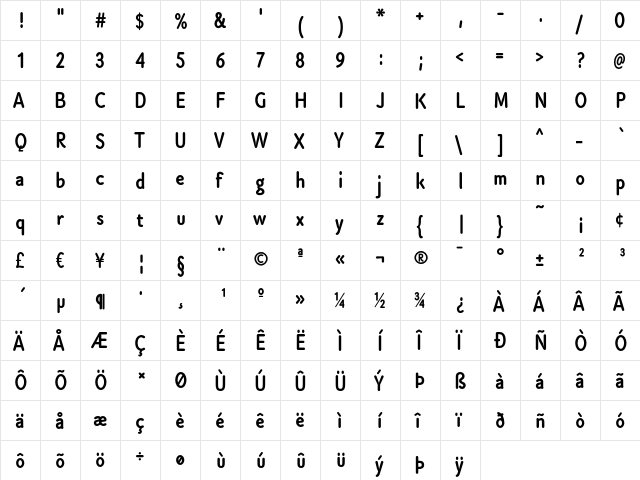
Cen Pro Bold
| Foundry | Neil Summerour/Positype |
| Designer | Neil Summerour |
Design Context for Cen Pro Typeface
Cen Pro is a composed and adaptable typeface that performs quietly and consistently across a wide range of design contexts. The heavy weight commands attention and anchors typographic hierarchies.